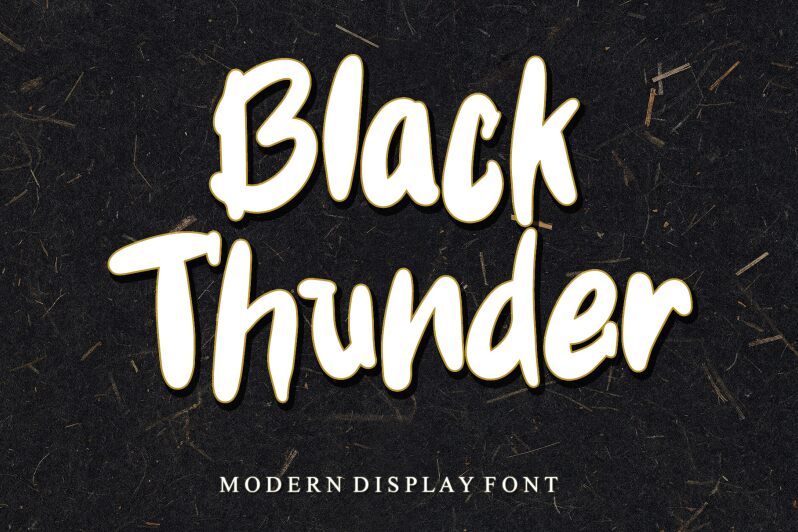
Black Thunder, the bold and smooth brush font by Letterafa Studio is a must-have in any designer's toolkit. With its thick strokes and unique texture, this font is perfect for creating eye-catching headlines, titles, and logos. Whether you're designing a trendy t-shirt or a sleek website banner, Black Thunder's boldness will ensure your message is heard loud and clear. Its edgy yet refined style makes it suitable for projects ranging from music posters to luxury packaging. So why settle for ordinary fonts when you can make a statement with Black Thunder?
Black Thunder